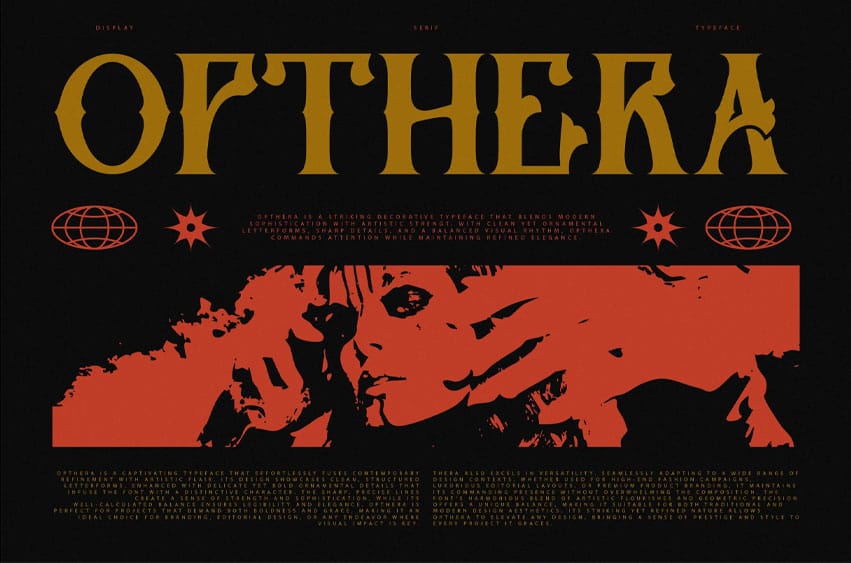
Opthera Font is a striking decorative typeface that blends modern sophistication with artistic strength.
With clean yet ornamental letterforms, sharp details, and a balanced visual rhythm, Opthera commands attention while maintaining refined elegance.